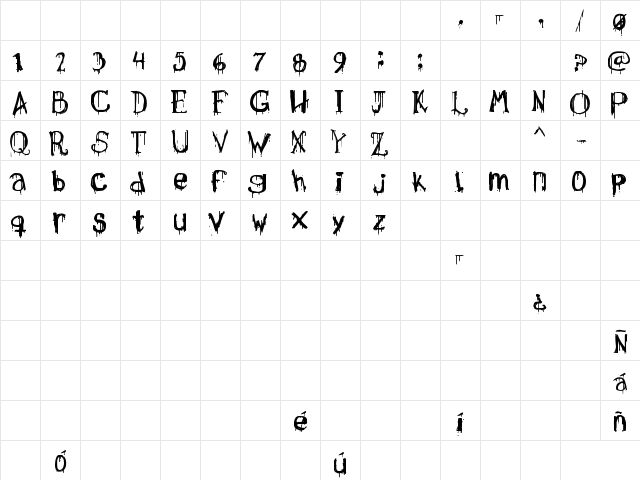
Necropsy Regular
Design Context for Necropsy Typeface
Necropsy is a composed and adaptable typeface that performs quietly and consistently across a wide range of design contexts.